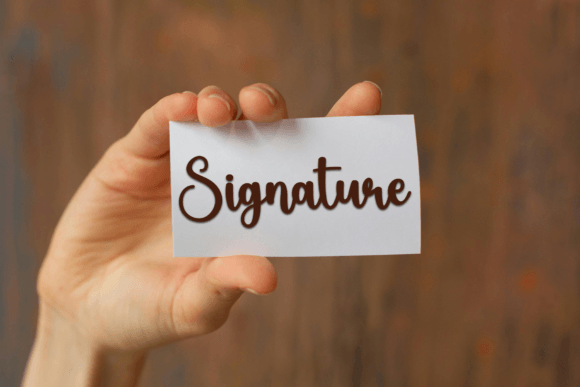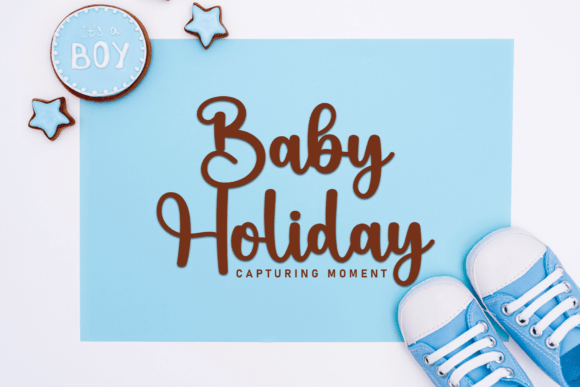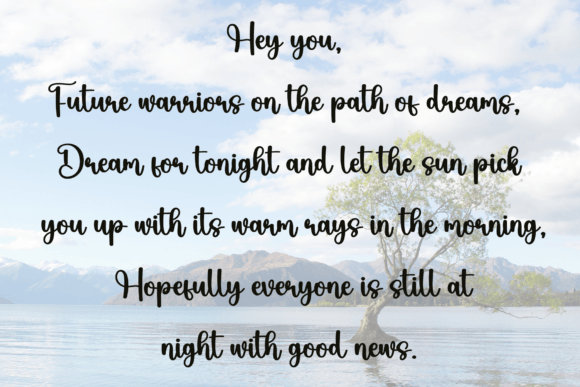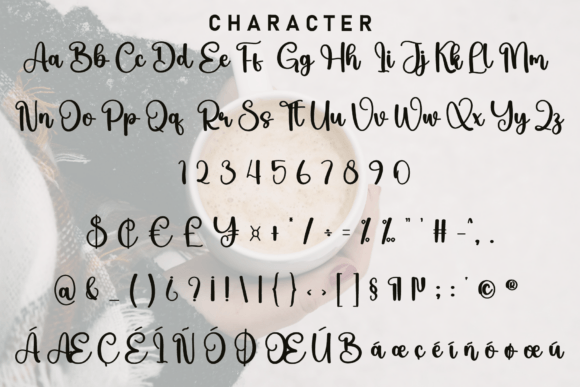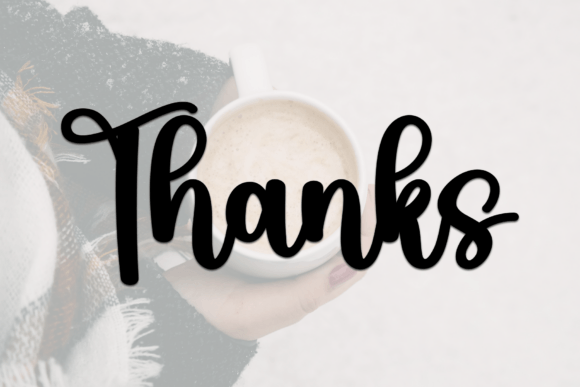
Candy Winter Font: Add a Fun and Energetic Touch to Your Designs
Are you looking for a font that can add a playful and sporty vibe to your designs? Look no further than the Candy Winter Font. This fun and energetic script font is perfect for making your text stand out and leave a lasting impression on your audience. In this article, we’ll take a closer look at the Candy Winter Font, its features, and how you can use it to elevate your designs.
What is Candy Winter Font?
Candy Winter Font is a playful script font that looks like it was drawn with a bold marker. Its casual and sporty vibe makes it perfect for designs that require a fun and energetic feel. The font has a unique and distinctive style that sets it apart from other fonts, making it a great addition to any designer’s toolkit.
Key Features of Candy Winter Font
- Playful Script Style: Candy Winter Font has a playful script style that is perfect for making your text stand out.
- Bold Marker Look: The font looks like it was drawn with a bold marker, giving it a unique and distinctive style.
- Casual and Sporty Vibe: The font has a casual and sporty vibe that makes it perfect for designs that require a fun and energetic feel.
- Easy to Read: Despite its playful style, Candy Winter Font is easy to read, making it perfect for use in a variety of designs.
How to Use Candy Winter Font in Your Designs
Candy Winter Font is a versatile font that can be used in a variety of designs, from craft projects to digital designs. Here are a few ways you can use Candy Winter Font in your designs:
- Craft Projects: Use Candy Winter Font to add a fun and energetic touch to your craft projects, such as scrapbooking, card making, and journaling.
- Digital Designs: Use Candy Winter Font in your digital designs, such as social media graphics, blog posts, and website headers.
- Signs and Posters: Use Candy Winter Font to create eye-catching signs and posters that are sure to grab attention.
Benefits of Using Candy Winter Font
There are many benefits to using Candy Winter Font in your designs. Here are a few:
- Adds a Fun and Energetic Touch: Candy Winter Font adds a fun and energetic touch to your designs, making them more engaging and attention-grabbing.
- Perfect for Playful Designs: The font is perfect for designs that require a playful and sporty vibe, such as craft projects and digital designs.
Tips for Using Candy Winter Font Effectively
Here are a few tips for using Candy Winter Font effectively in your designs:
- Use it Sparingly: Use Candy Winter Font sparingly to avoid overwhelming your design. Use it for headings or titles to add a fun and energetic touch.
- Pair it with Other Fonts: Pair Candy Winter Font with other fonts to create a unique and interesting contrast.
- Experiment with Colors: Experiment with different colors to find the perfect combination that works with your design.
Candy Winter Font is a fun and energetic script font that is perfect for making your text stand out. Its playful style and casual, sporty vibe make it perfect for designs that require a fun and energetic feel. With its ease of use and versatility, Candy Winter Font is a great addition to any designer’s toolkit. Whether you’re a designer or crafter, Candy Winter Font is sure to become a favorite font in your collection.